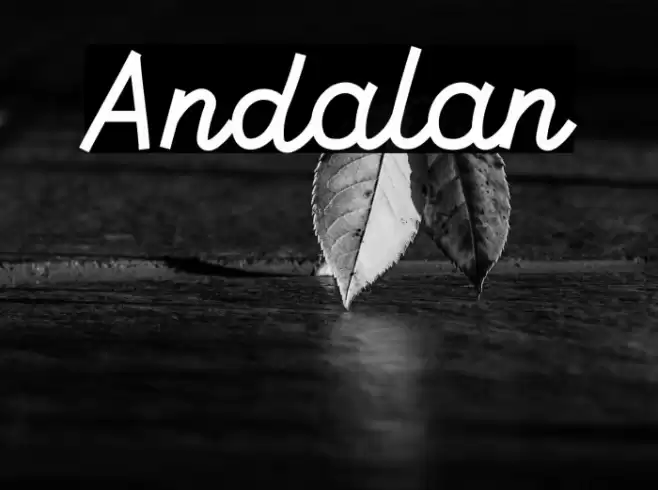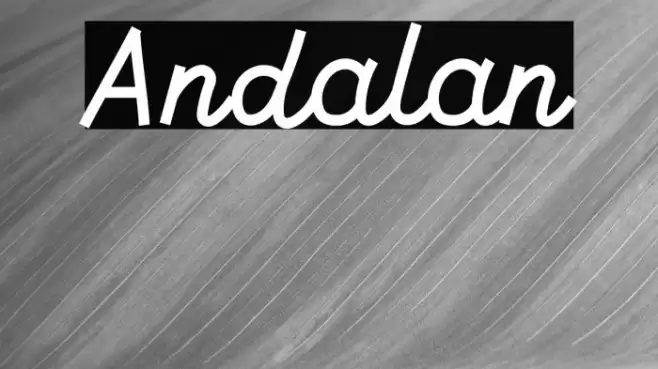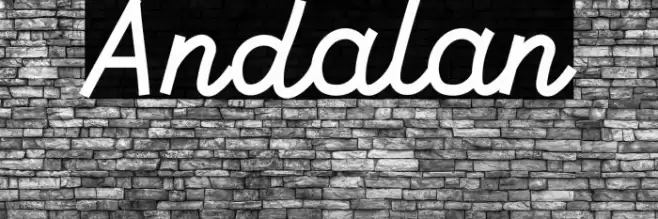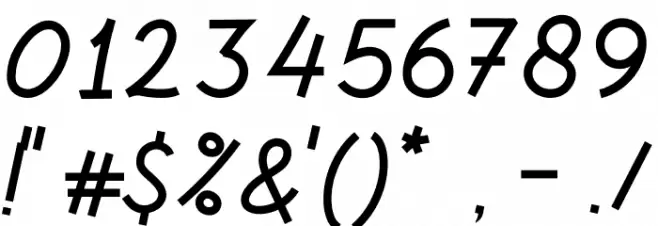
Andalan Font
Andalan Description
This font features a dynamic and fluid script style, characterized by its smooth, cursive letterforms that convey a sense of elegance and movement. The uppercase letters are slightly more upright and structured, while the lowercase letters exhibit a more pronounced slant, enhancing the font's overall flow. The numerals are consistent with the script style, maintaining readability while complementing the alphabetic characters. Special characters are seamlessly integrated, ensuring a cohesive appearance across all glyphs. This font's design is both modern and timeless, making it versatile for various applications.
A fluid and elegant script font with a modern, dynamic style from Regular fonts.
- Proposed Projects: Ideal for wedding invitations, branding, logo design, and elegant stationery.
- Use Case: Logos, Invitations, Branding